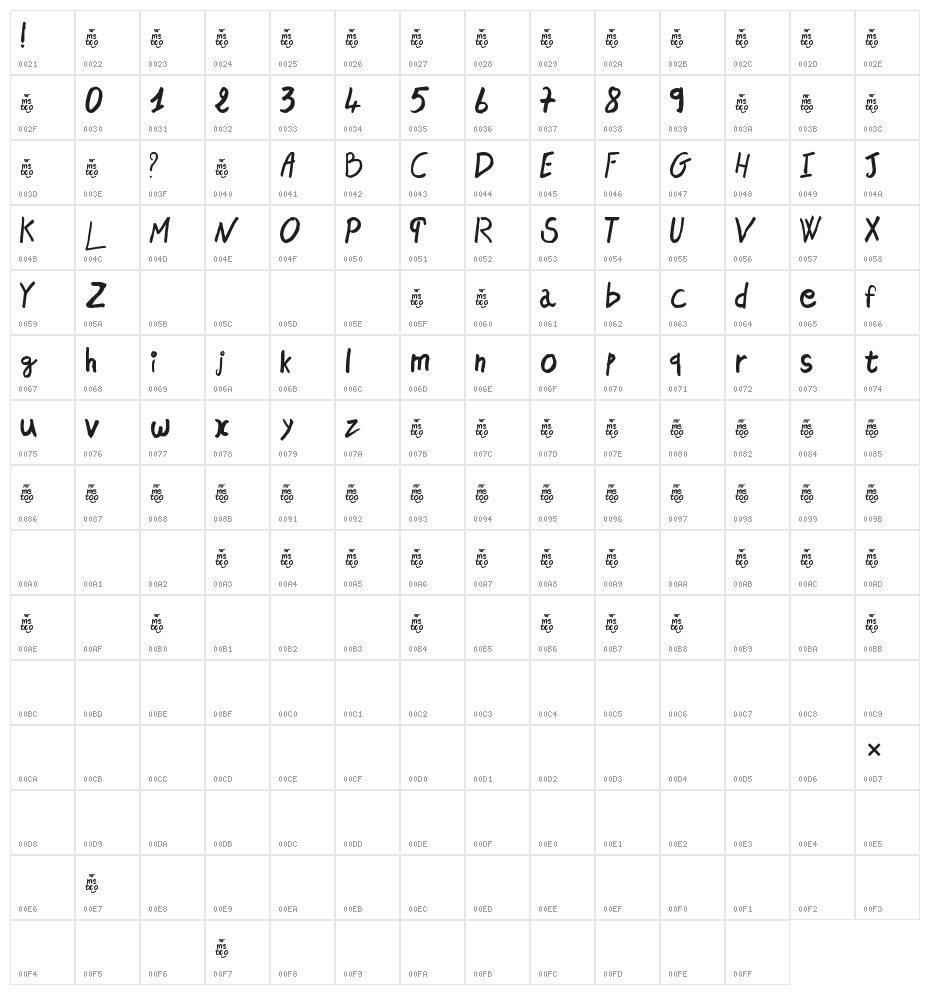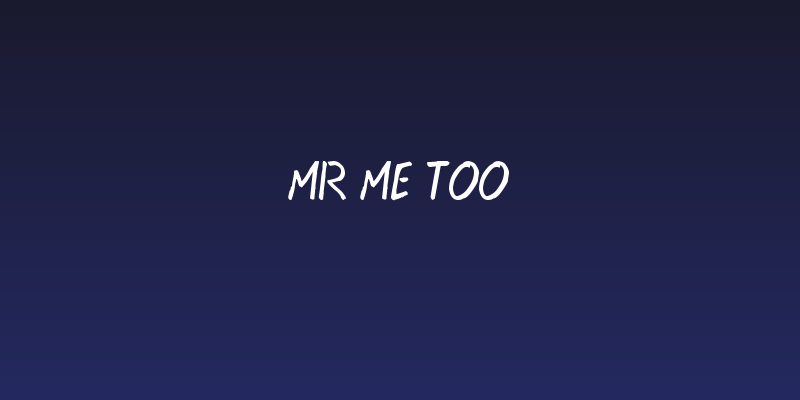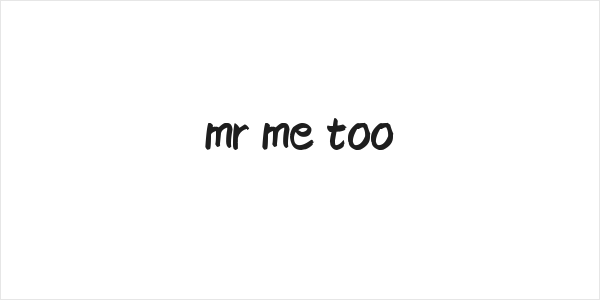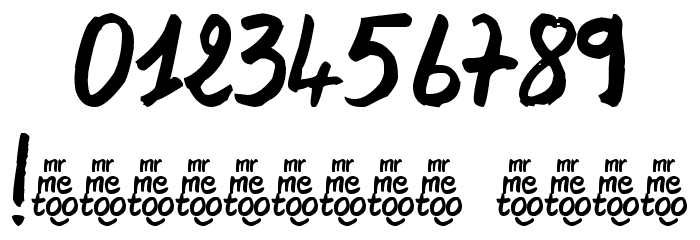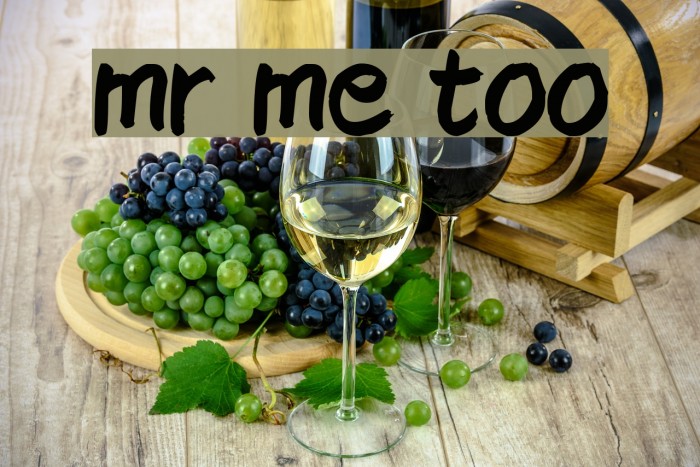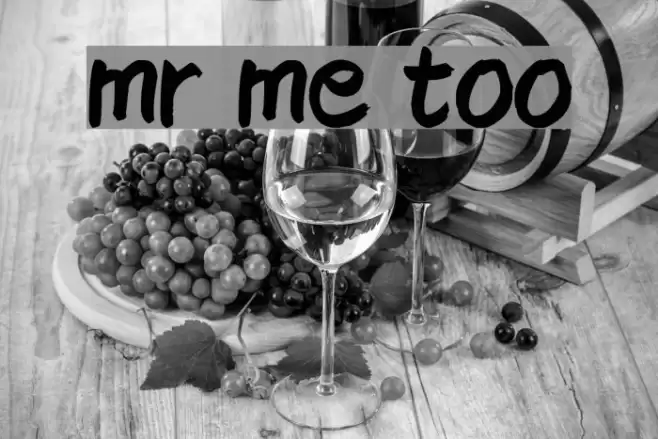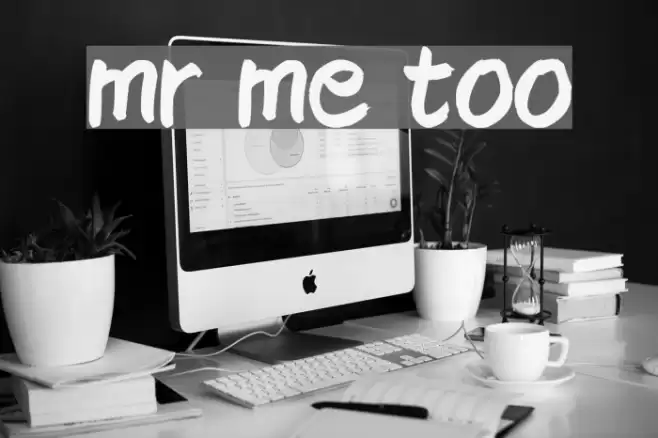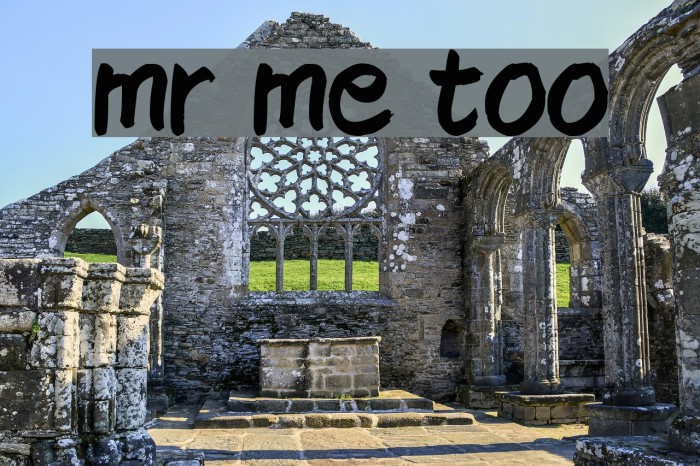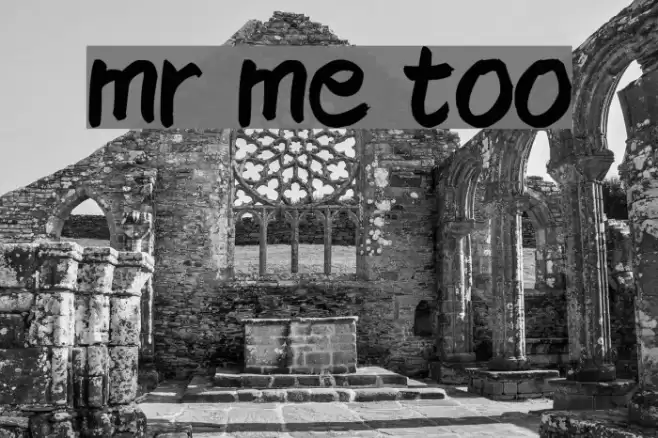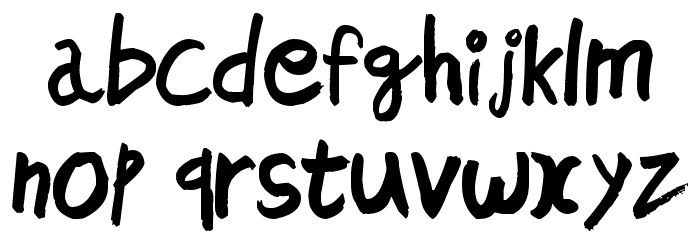
mr me too Font
This font exhibits a playful and energetic handwritten style, characterized by its bold and slightly irregular strokes. The uppercase letters are tall and slightly narrow, with a casual flair that suggests a sense of spontaneity. The lowercase letters maintain a consistent flow, with rounded edges and a lively bounce that adds to the font's dynamic appearance. Numbers are bold and clear, matching the overall style of the alphabet. Special characters are integrated seamlessly, maintaining the playful and informal tone. This font's unique personality makes it suitable for projects that require a touch of creativity and informality.
| Overall Style | Playful, Energetic, Informal |
| Use Case | Headlines, Logos, Informal Texts |
| Proposed Projects | Ideal for creative projects such as children's books, greeting cards, playful branding, and informal invitations. |